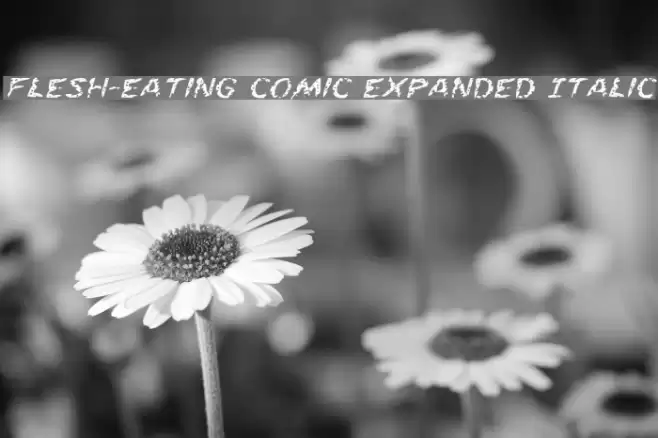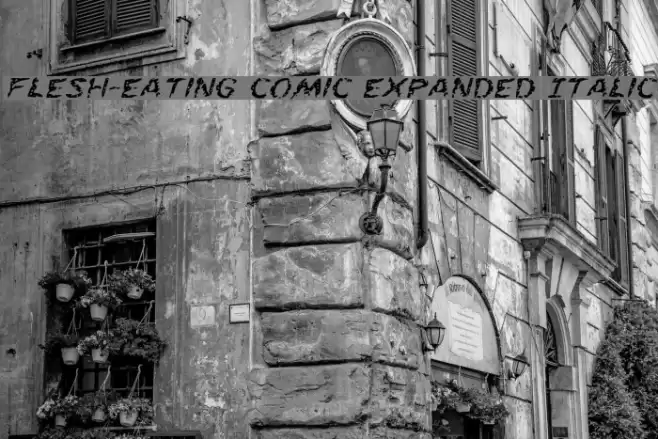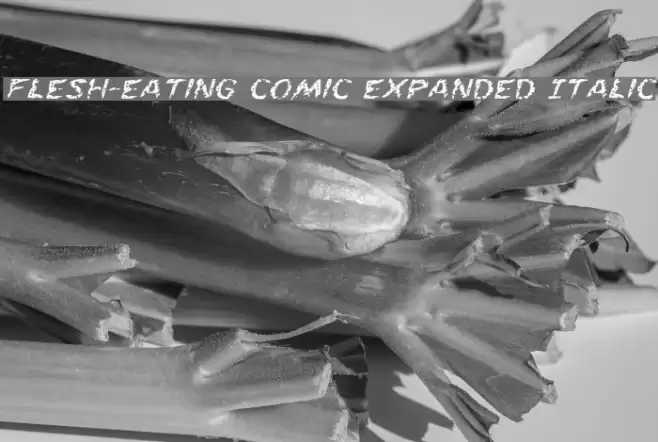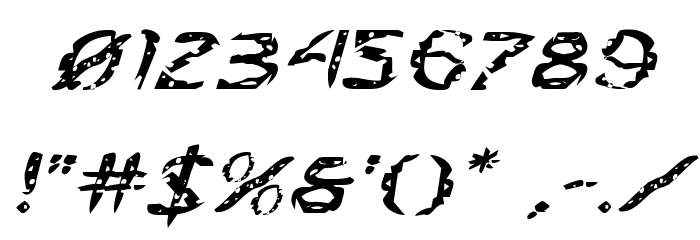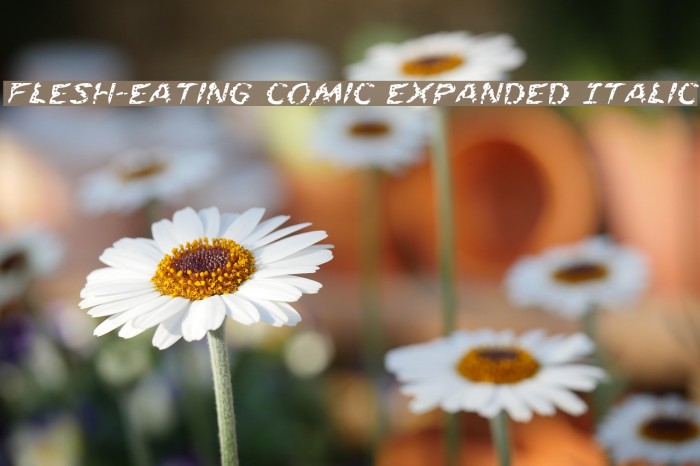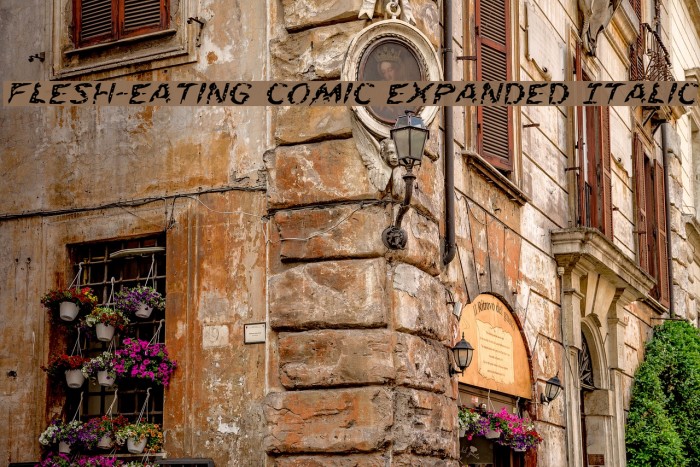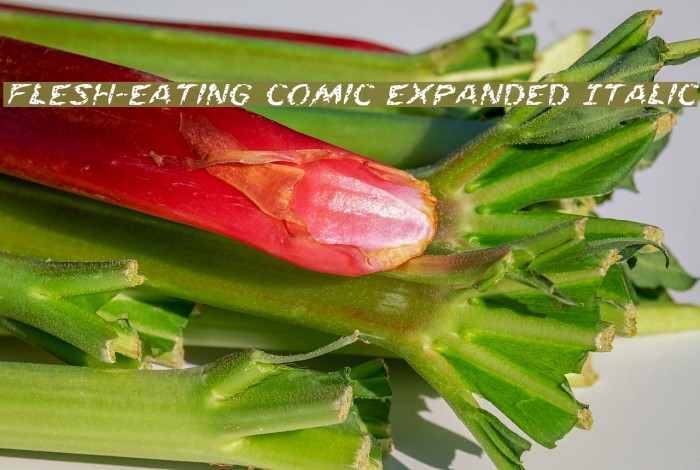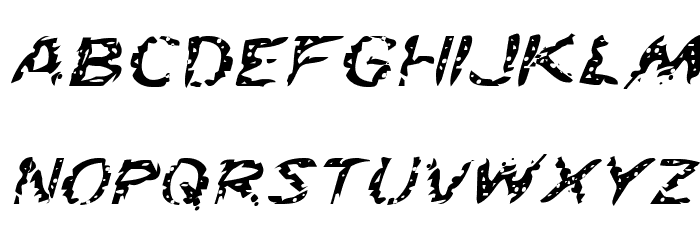
Flesh-Eating Comic Expanded Italic Font
Flesh-Eating Comic Expanded Italic Description
This font features a bold and dynamic style with a distressed, grunge-like appearance. The characters are designed with irregular edges and rough textures, giving them a unique, edgy look. The italic slant adds a sense of movement and urgency, while the expanded width provides a bold presence. This font is perfect for projects that require a dramatic and eye-catching design, such as horror-themed graphics, comic book titles, or edgy branding materials. The high contrast between the thick and thin strokes enhances its visual impact, making it stand out in any design.
A bold, distressed, and italicized font with a grunge aesthetic from Uncategorized fonts.
- Proposed Projects: Ideal for horror-themed designs, comic book titles, and edgy branding.